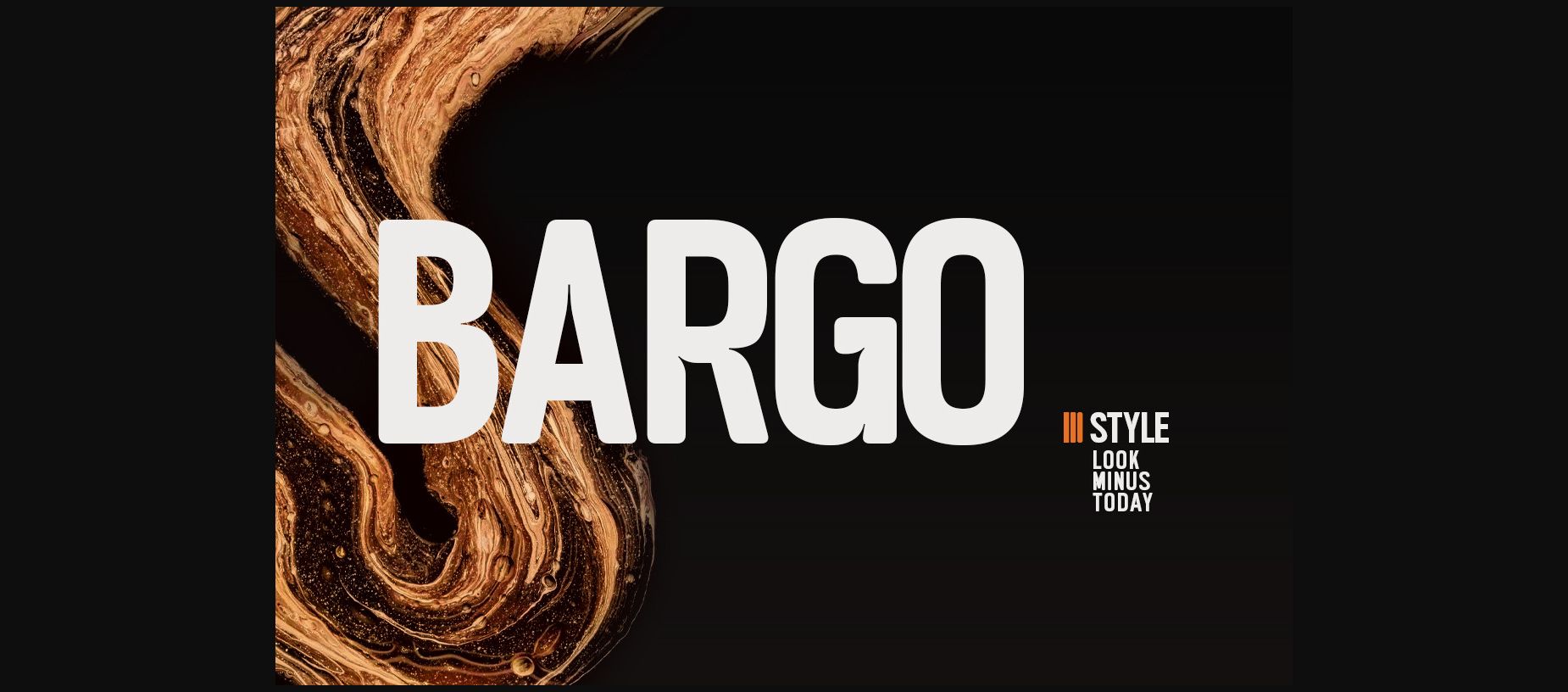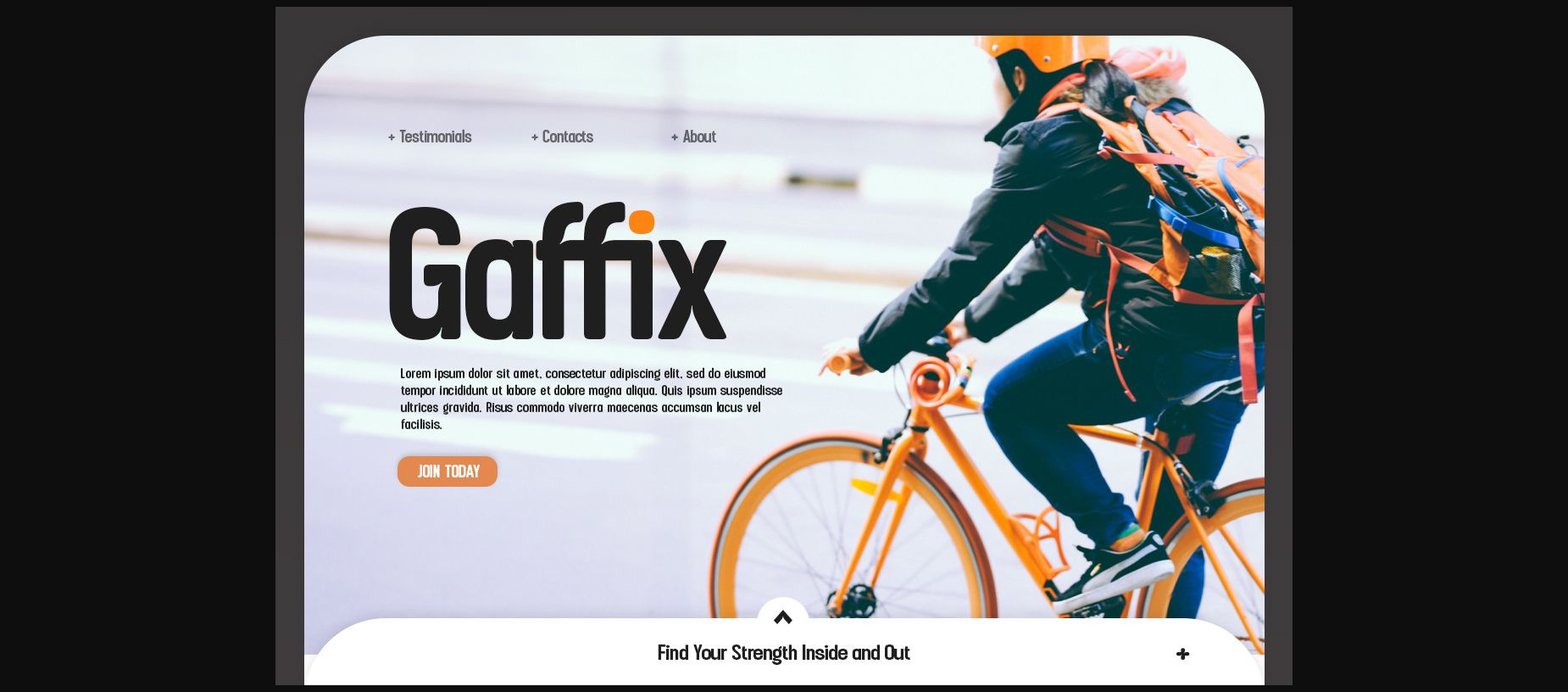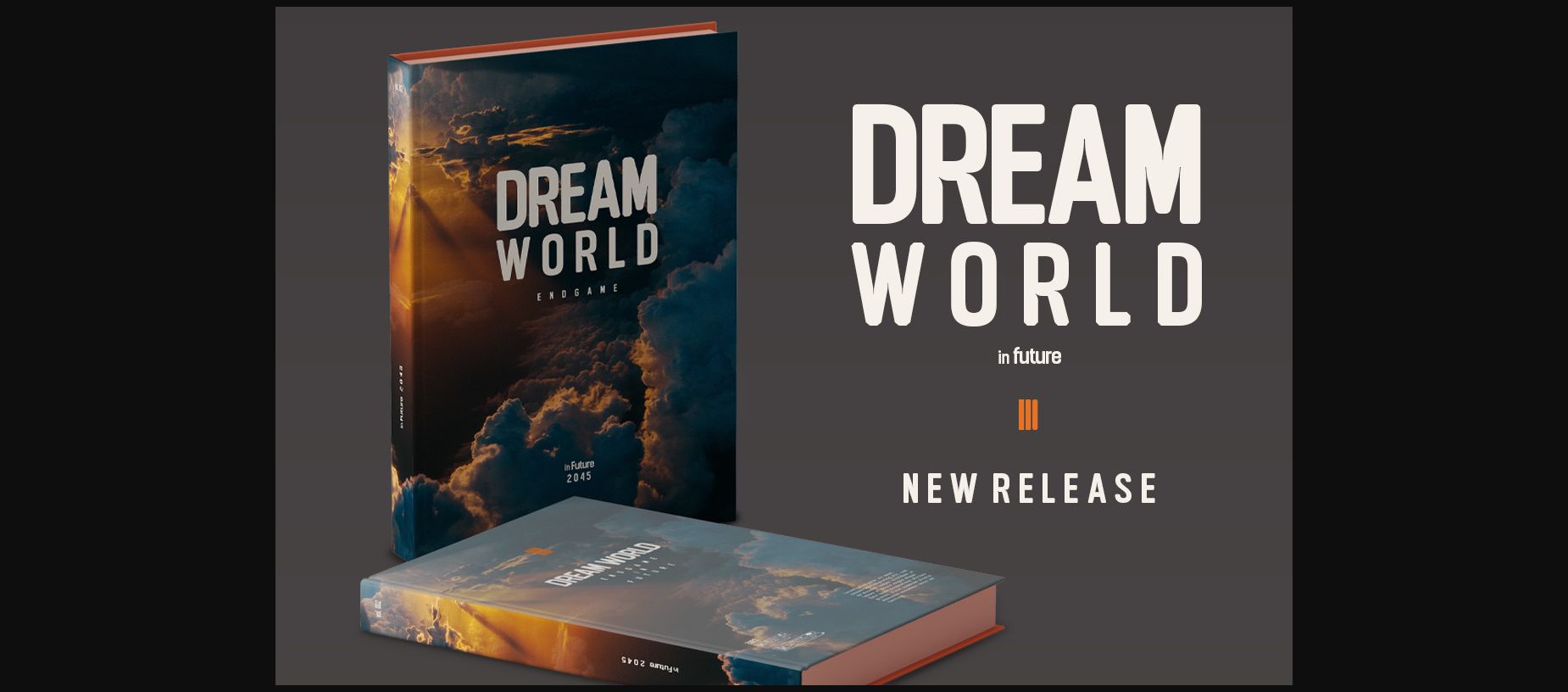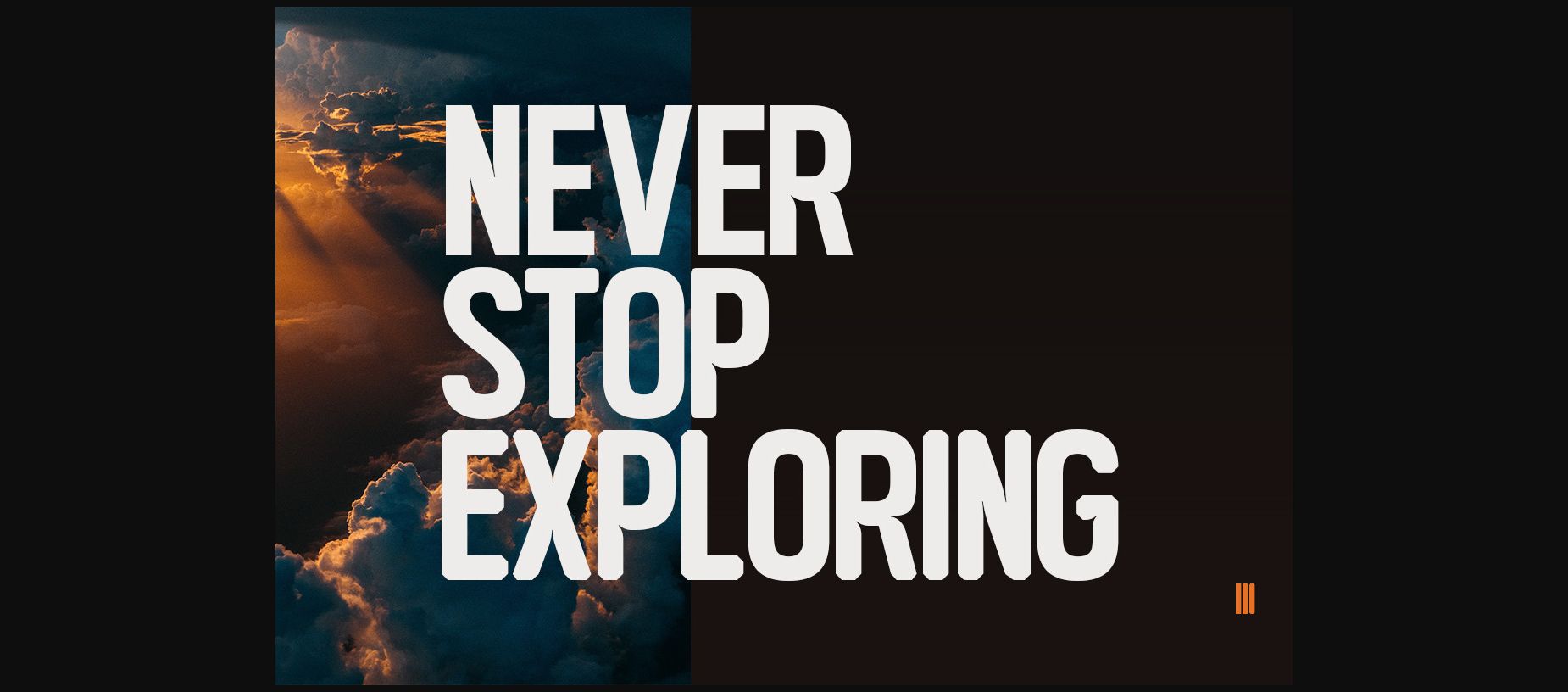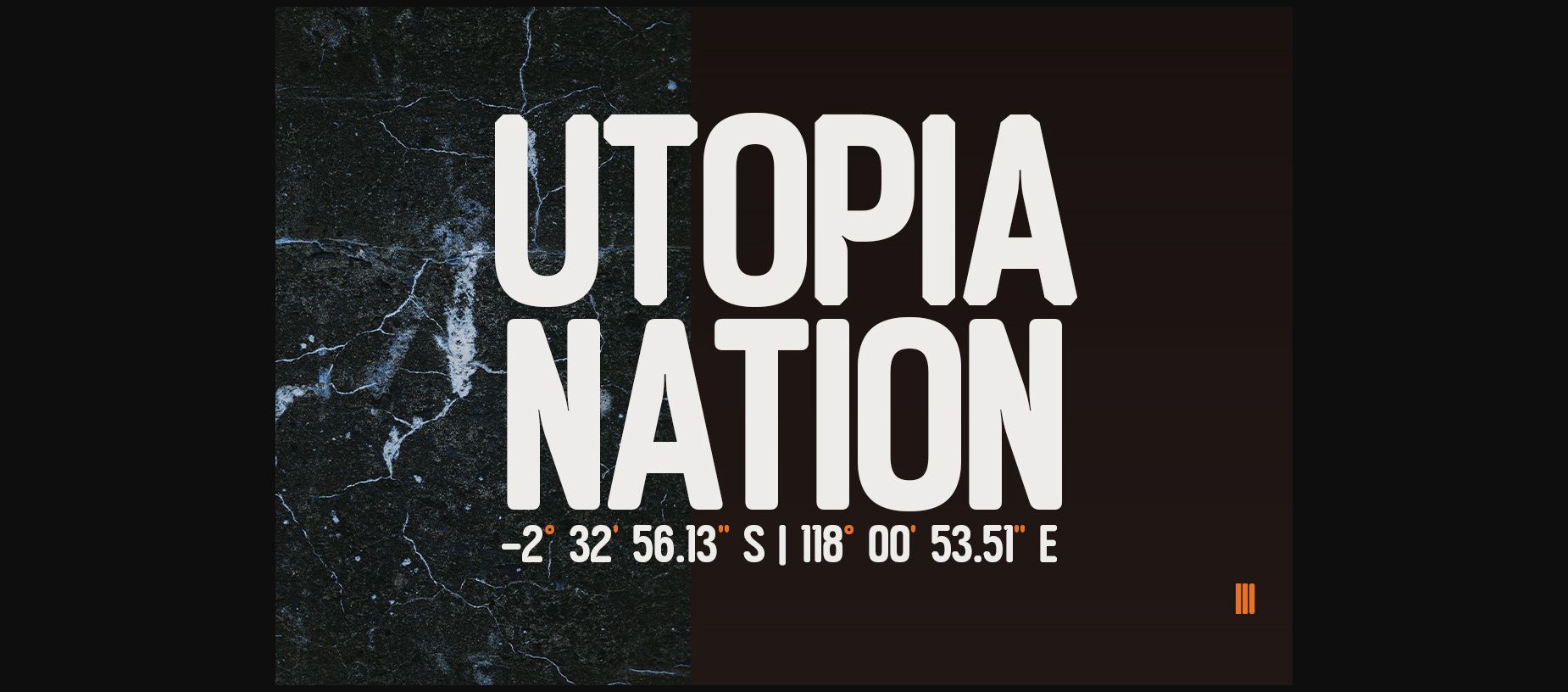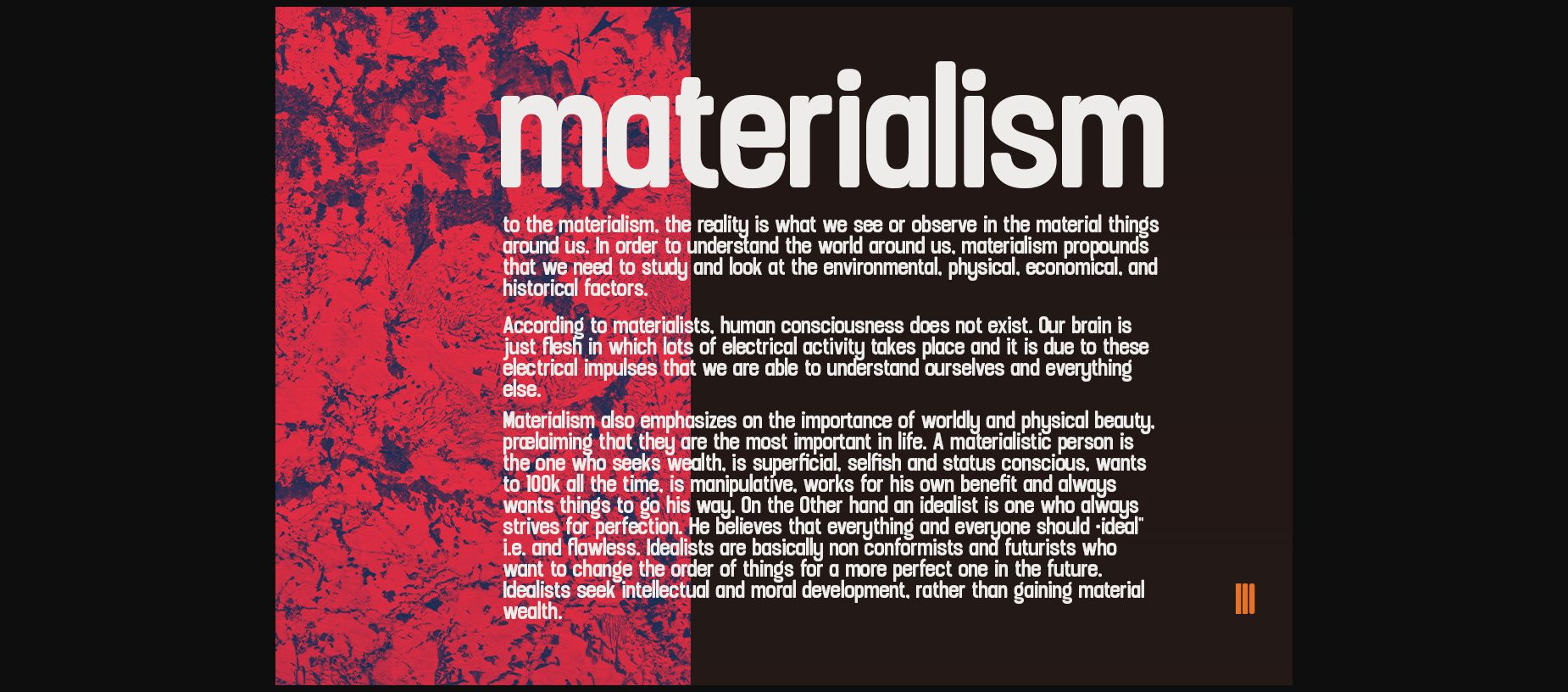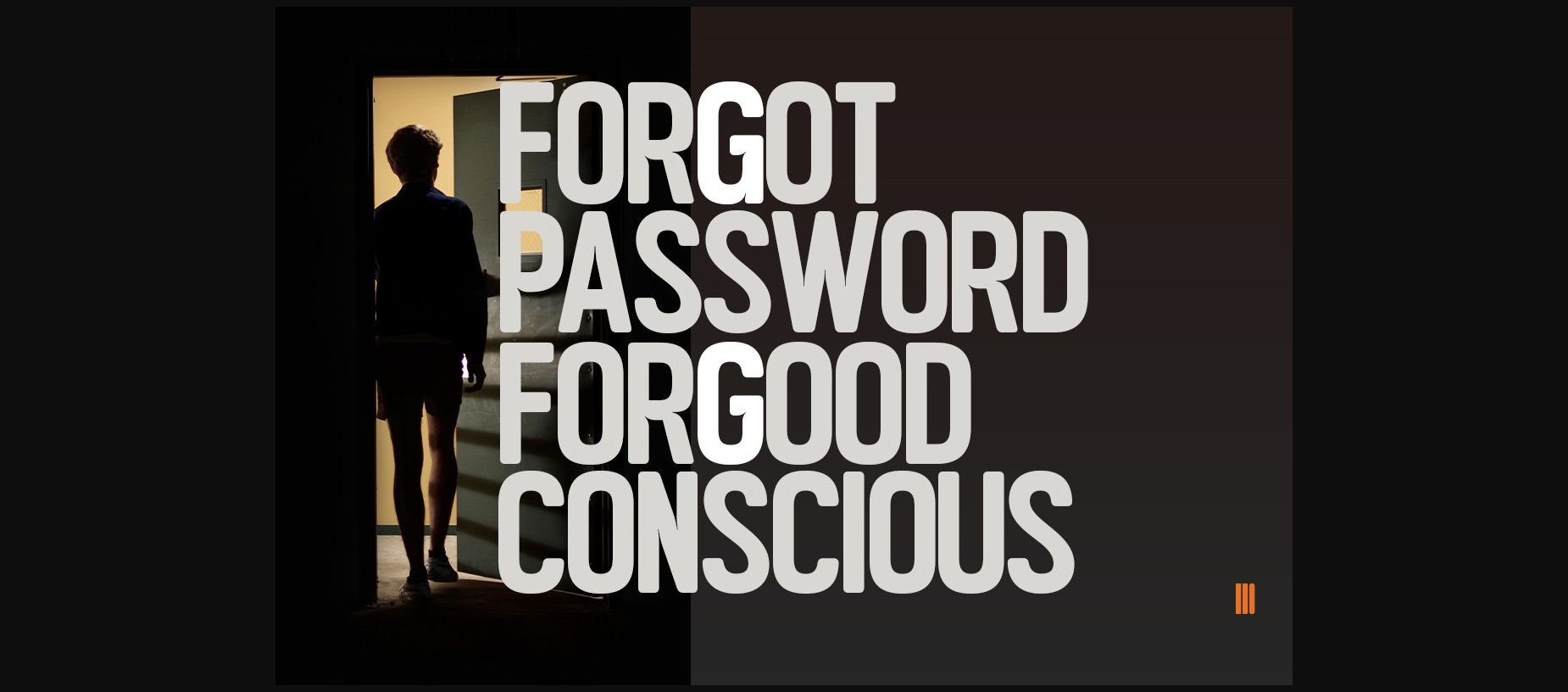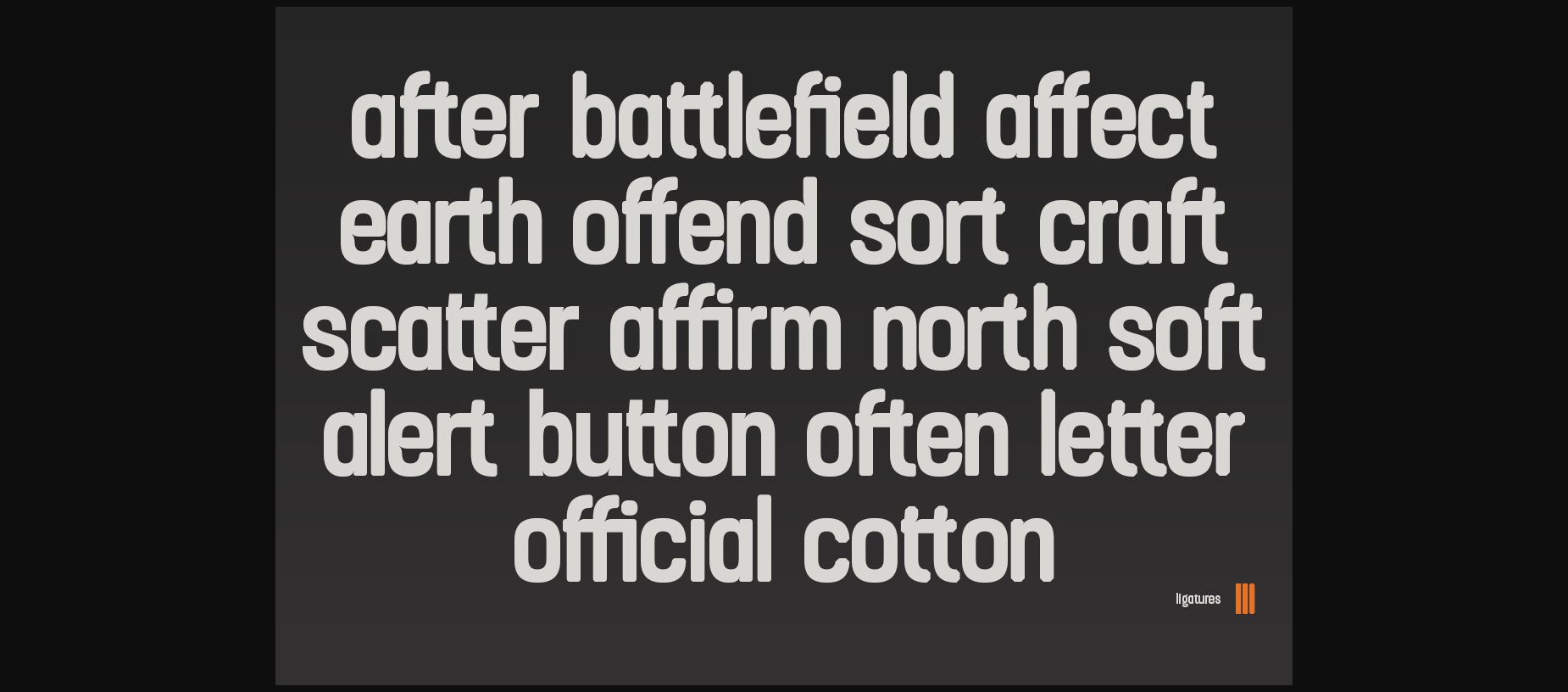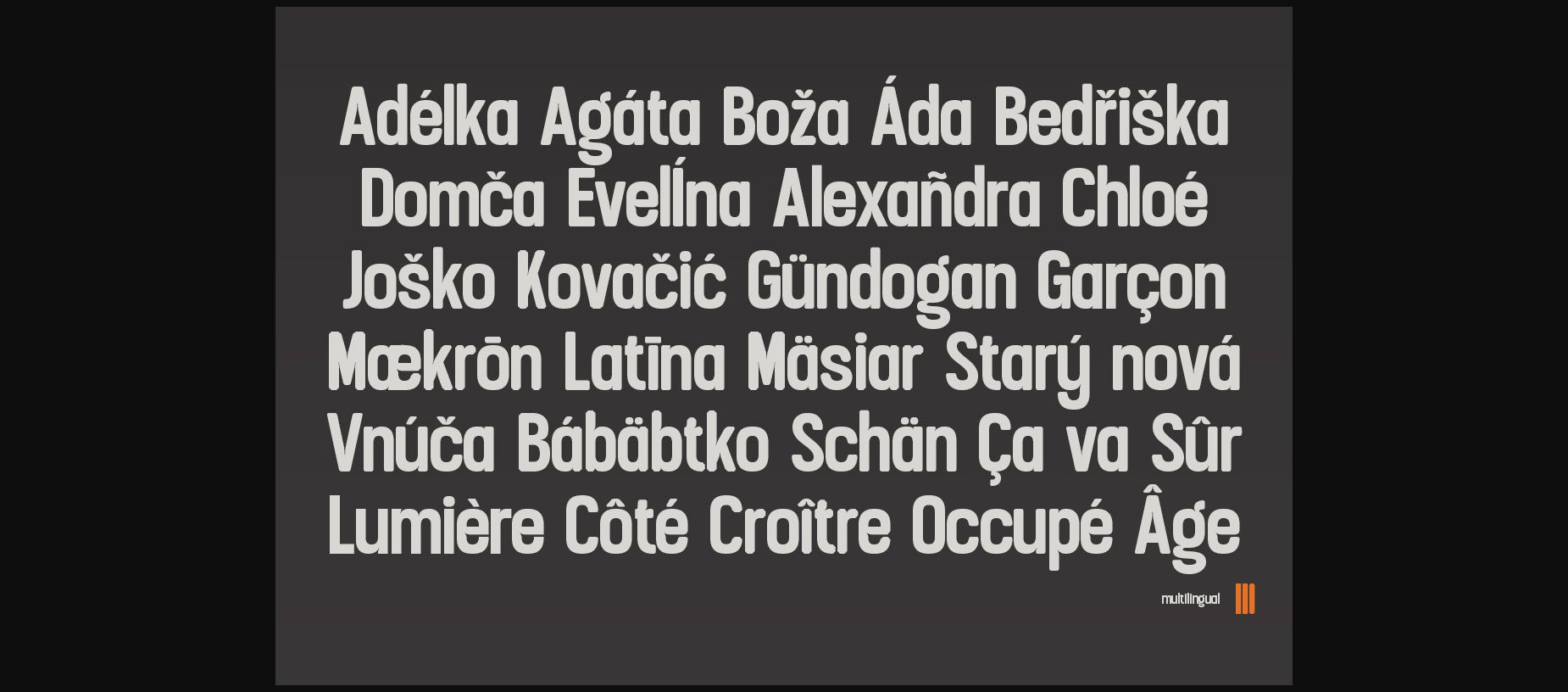
Bargo Font
About Bargo Font
Introducing Bargo – Sans Serif 3 Styles by Look Minus Today.
Behind these 3 styles, we want to combine a typeface that can provide a different perspective. Regular which gives a masculine and modern impression, an attractive manner with a contemporary feel to the round, and edged which wants to show its futuristic shape.
We liken this work to our children whose hope is to deliver whatever design can give its characteristics.
This versatile font is perfect for all design needs, from print materials to digital media, including branding, advertising, packaging, and editorial design. Our font is a versatile and stylish choice for any design project.